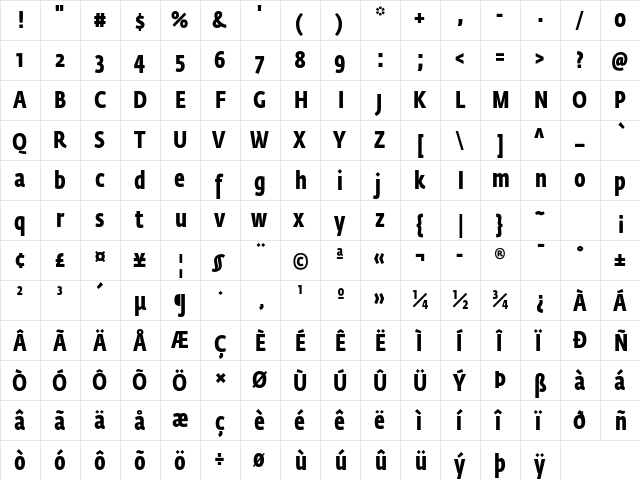
Fedra Sans Condensed Std Bold
| Foundry | Typotheque type foundry |
| Designer | Peter Bilak https://www.typotheque.com) |
Design Context for Fedra Sans Condensed Std Typeface
Fedra Sans Condensed Std offers clean, dependable letterforms without strong stylistic allegiance, making it a practical choice for designers who need flexibility. Its bold stroke weight gives it real presence on the page. The condensed width makes it efficient for tight spaces without sacrificing legibility.